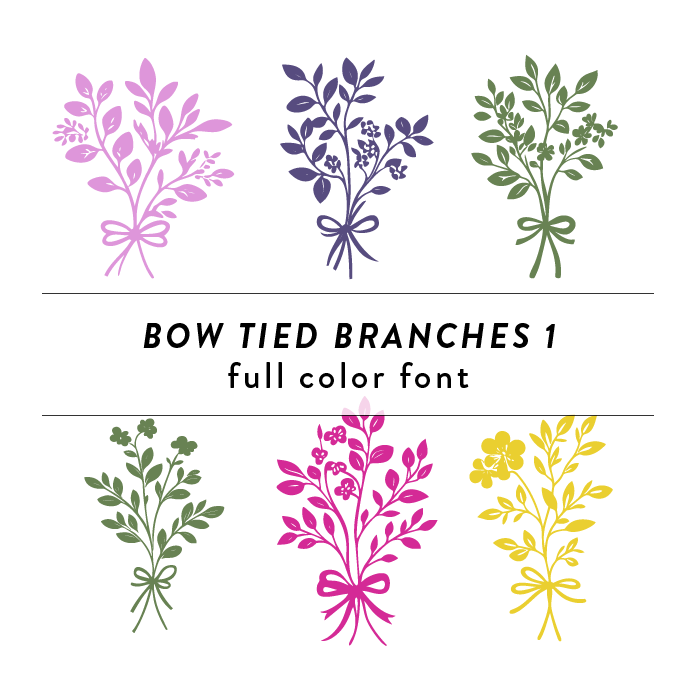
Bow Tied Branches 1 Full Color Font is a whimsical and elegant font design featuring intricate branches, leaves, and bow ties. Perfect for wedding invitations, engagement announcements, and other special occasions, this font adds a touch of nature and romance to any project. This font is a OTF craft font that will appear in color only when used with the silhouette software.